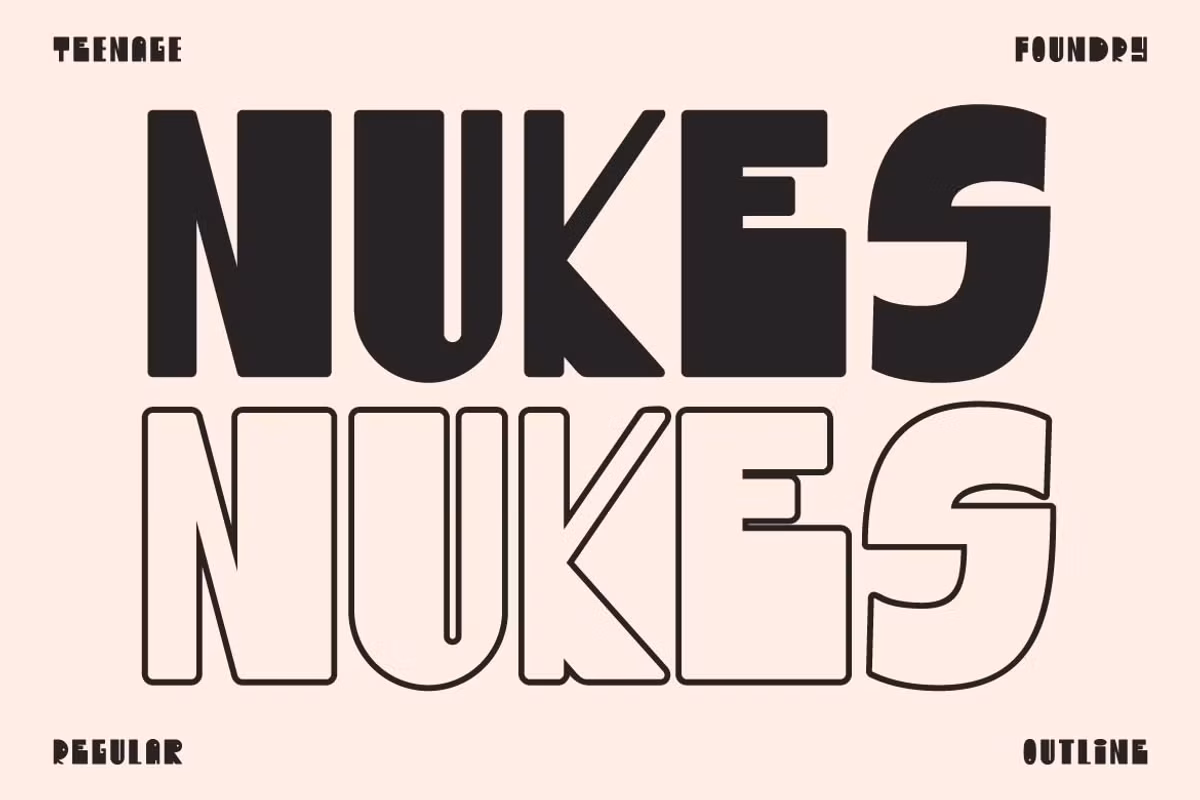
TF Nukes Free Download
TF Nukes Font Free Download is a bold and futuristic typeface designed to deliver high-impact visuals with a modern, industrial edge. Please note, you are required to purchase this font for commercial use. It is available for free download for testing and personal projects only.
With its sharp angles, strong lines, and sci-fi-inspired style, TF Nukes is perfect for tech branding, video game titles, posters, cyberpunk themes, digital interfaces, and edgy editorial layouts. It brings a commanding presence to your typography, making your message unmissable.